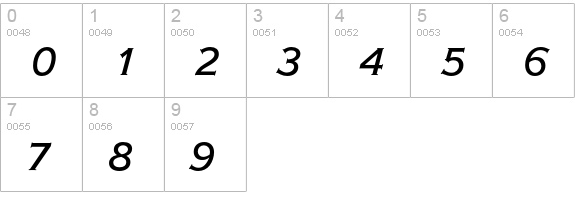
AmericanGothic-MediumItalic Font Details
AmericanGothic-MediumItalic font is a stylish and versatile typeface that strikes the perfect balance between modernity and classic elegance. Its unique italicized design adds a touch of sophistication to any project, making it ideal for a wide range of applications such as branding, advertising, and editorial design. What sets AmericanGothic-MediumItalic font apart is not just its aesthetic appeal, but also its accessibility. This high-quality font is available for free download at FontsMarket.com, allowing designers and creatives to easily access and utilize it in their projects without any restrictions. With its clean lines, sharp angles, and distinct personality, AmericanGothic-MediumItalic font is sure to make a lasting impression on any audience. Whether you're looking to add a touch of flair to your designs or simply need a reliable typeface for your next project, this font is a must-have in your collection. Download it for free today and elevate your designs to new heights.